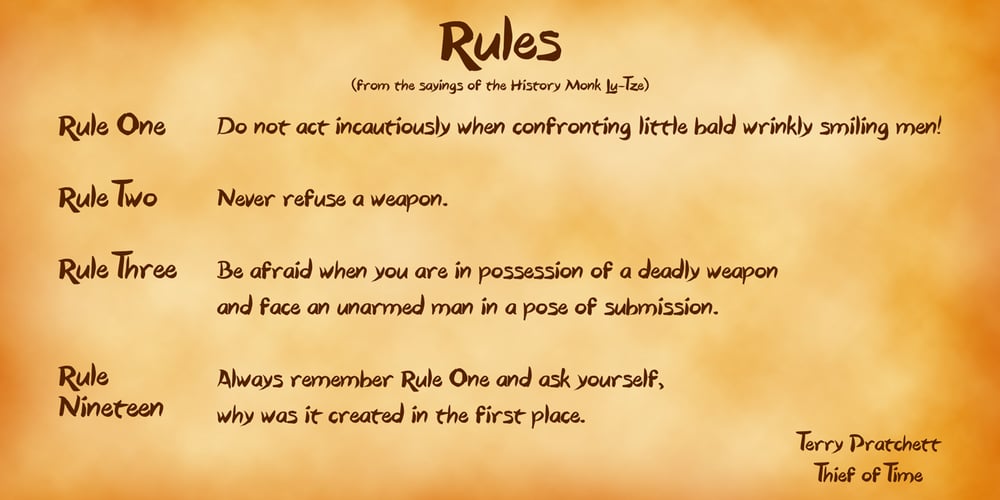
PR Dim Sum Font Family was designed by Peter Rempel and published by PR Fonts. PR Dim Sum contains 1 styles and family package options. Hand lettered with a pointed brush, this font strives to be evocative yet remain readable, even for medium length passages of text.